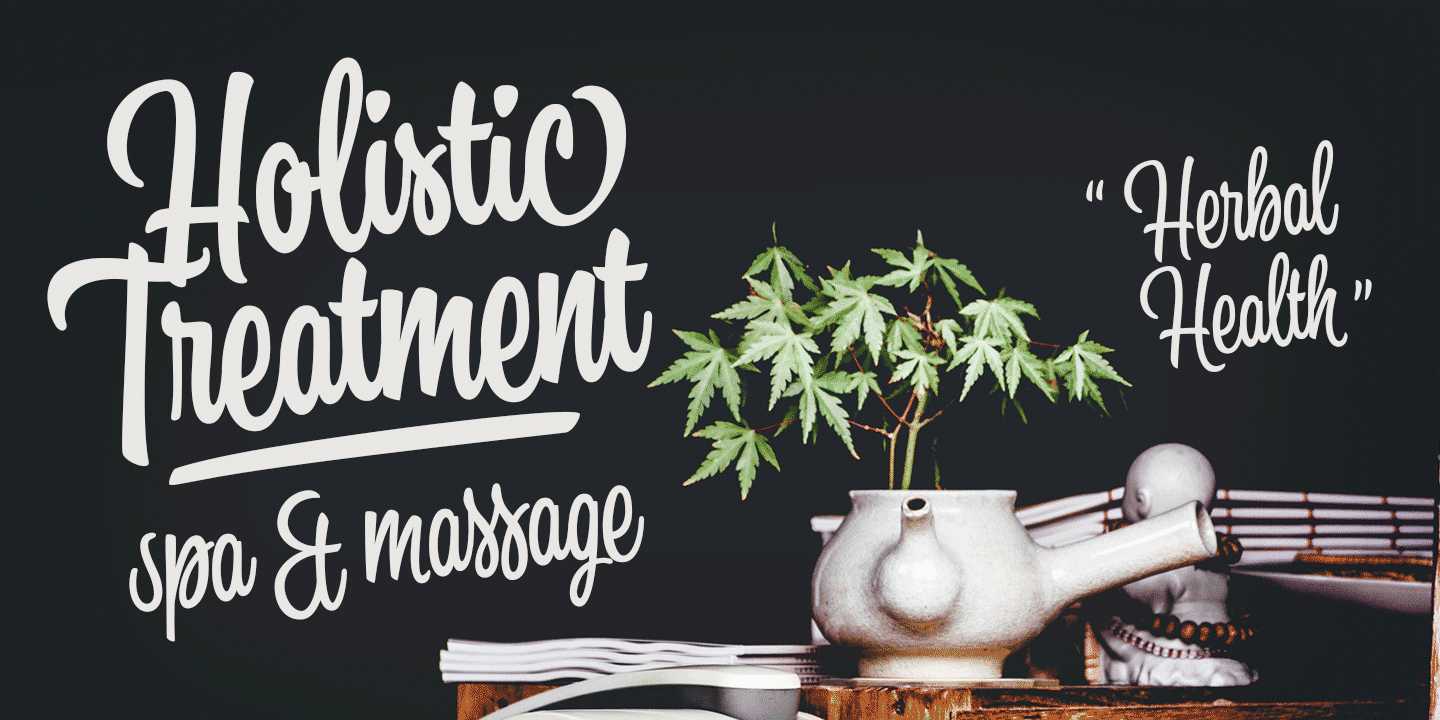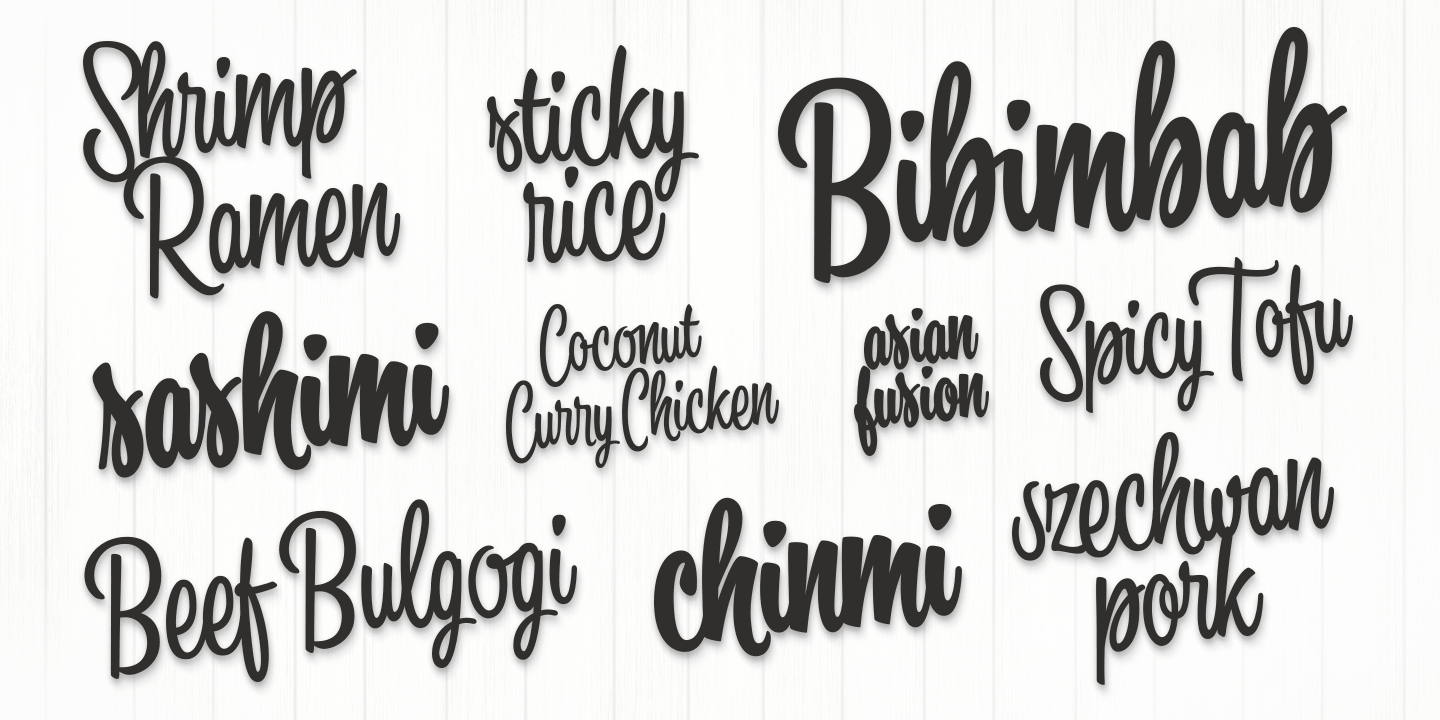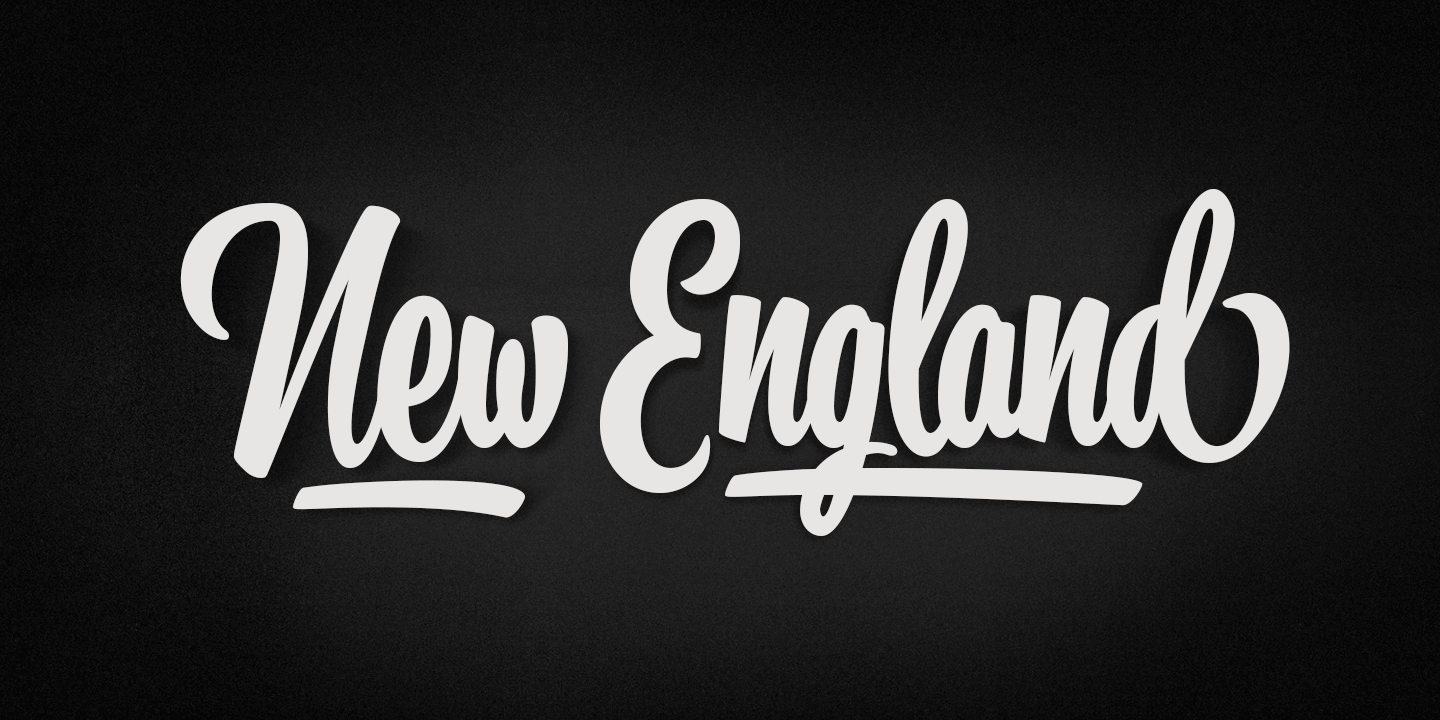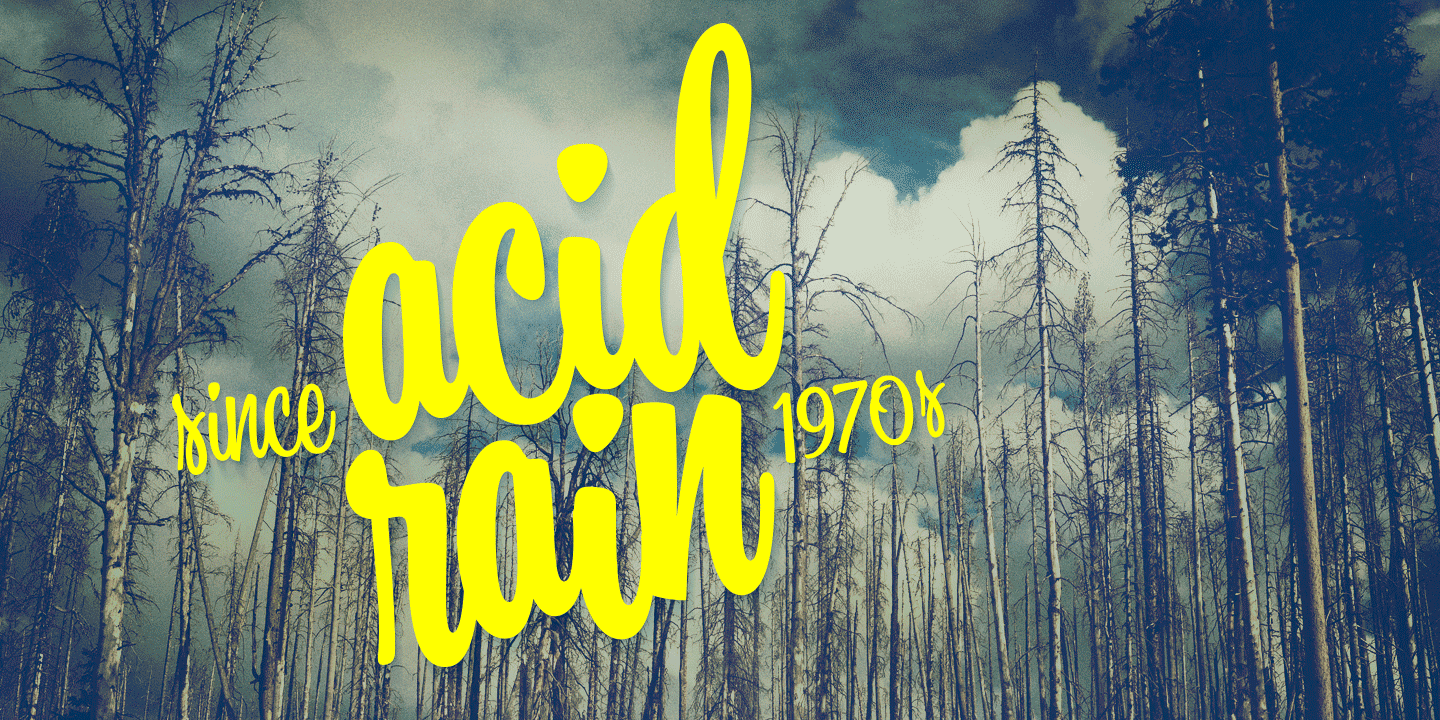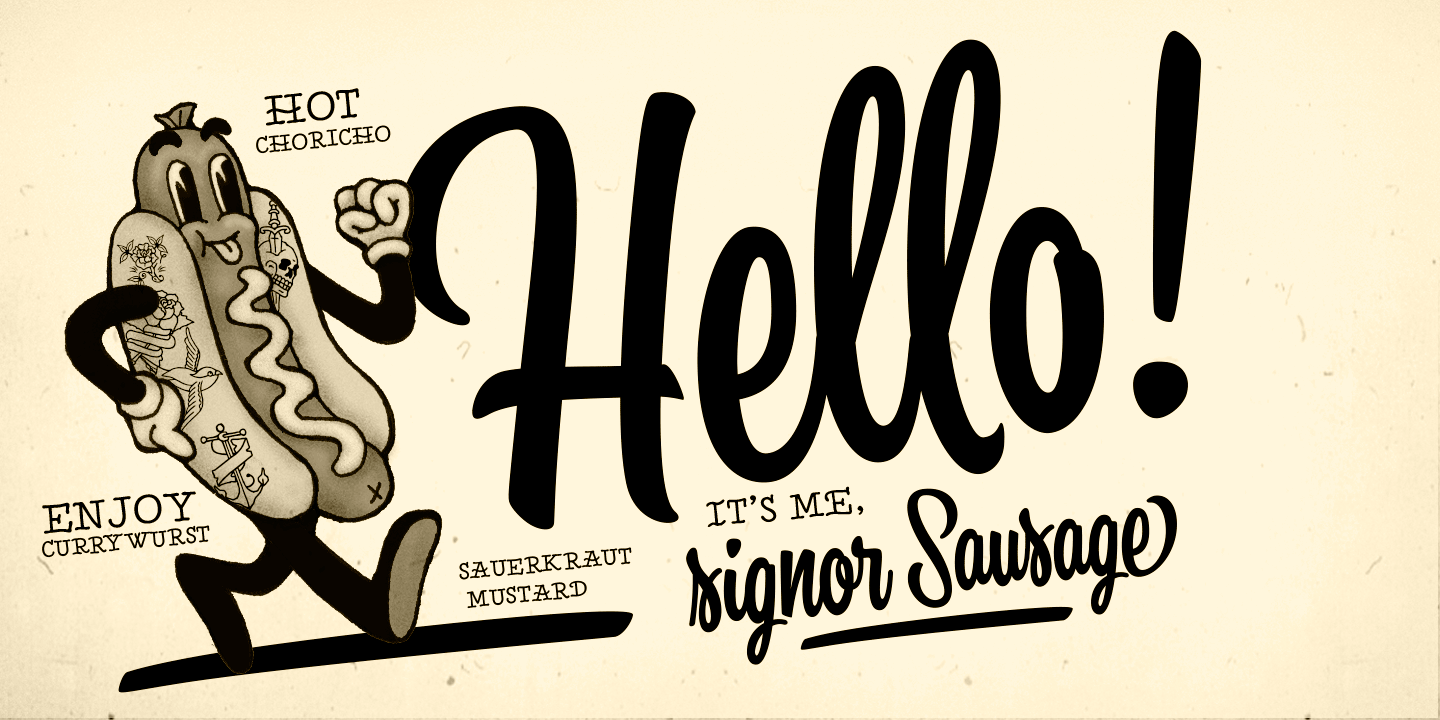
About Kitchen
Kitchen is an expressive sign painting style brush script family with three weights. Equipped with contextual alternates and ligatures that add variety in the flow, along with stylistic alternates for all characters, and swash alternates for lowercase.…